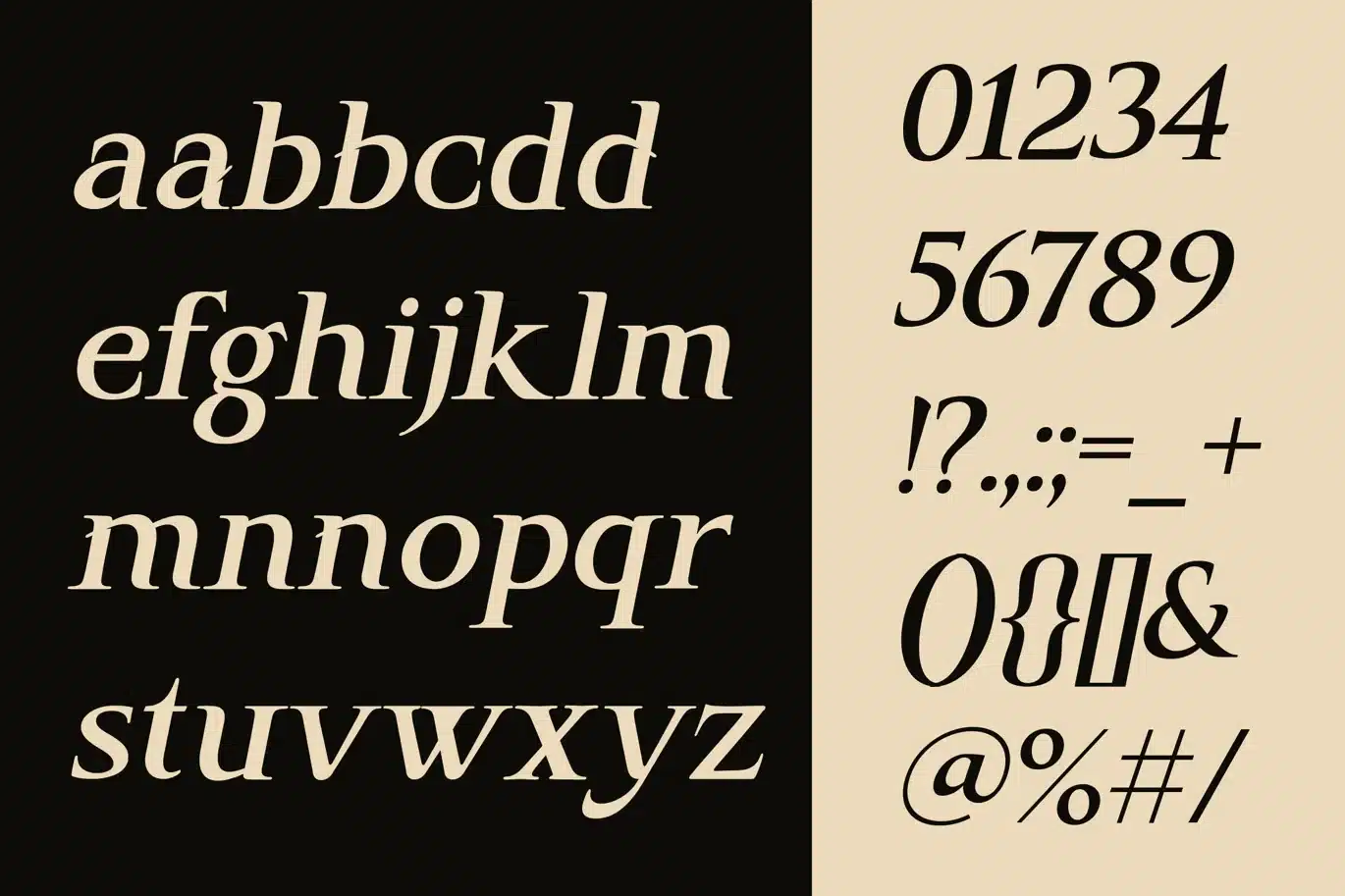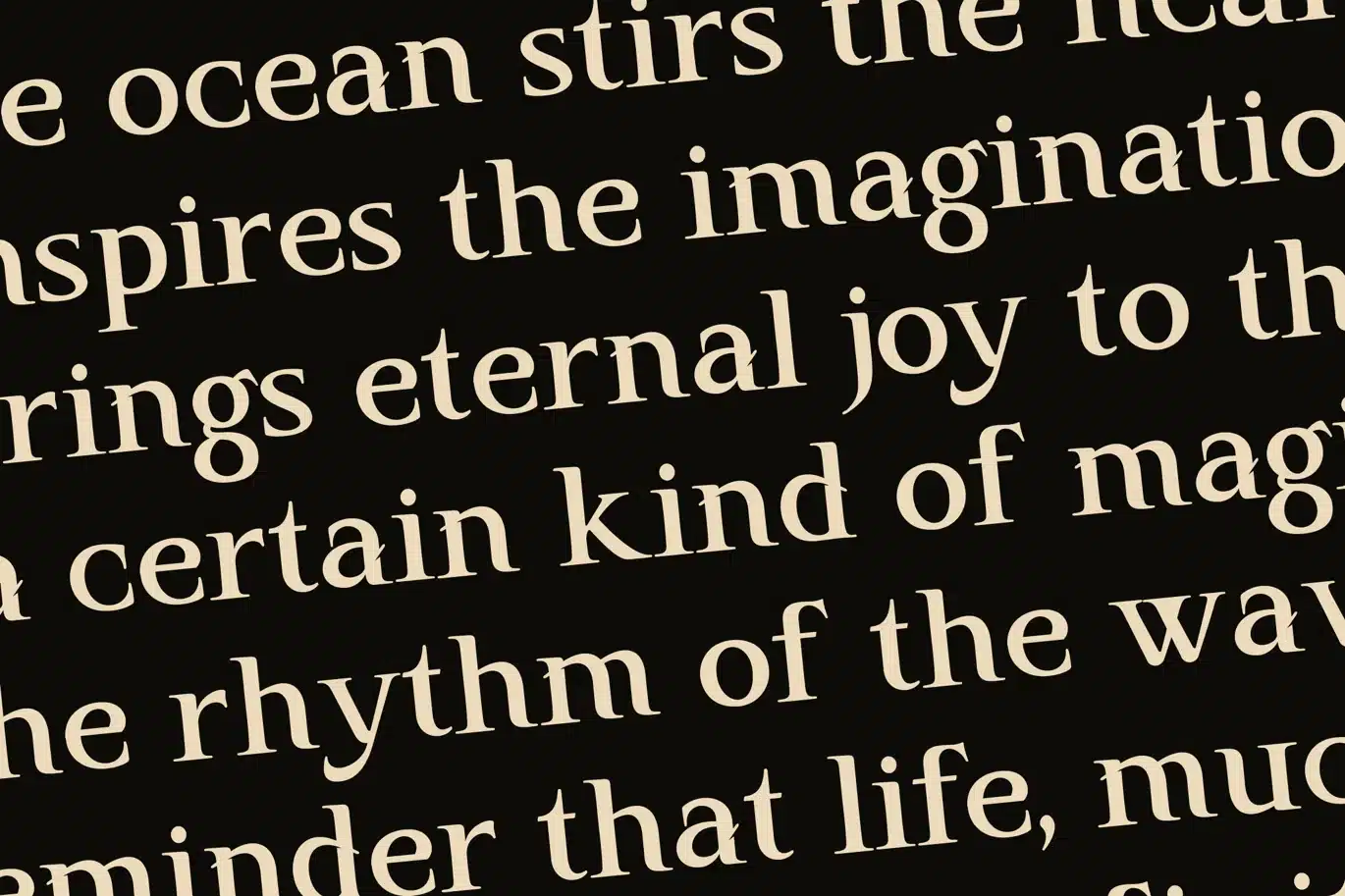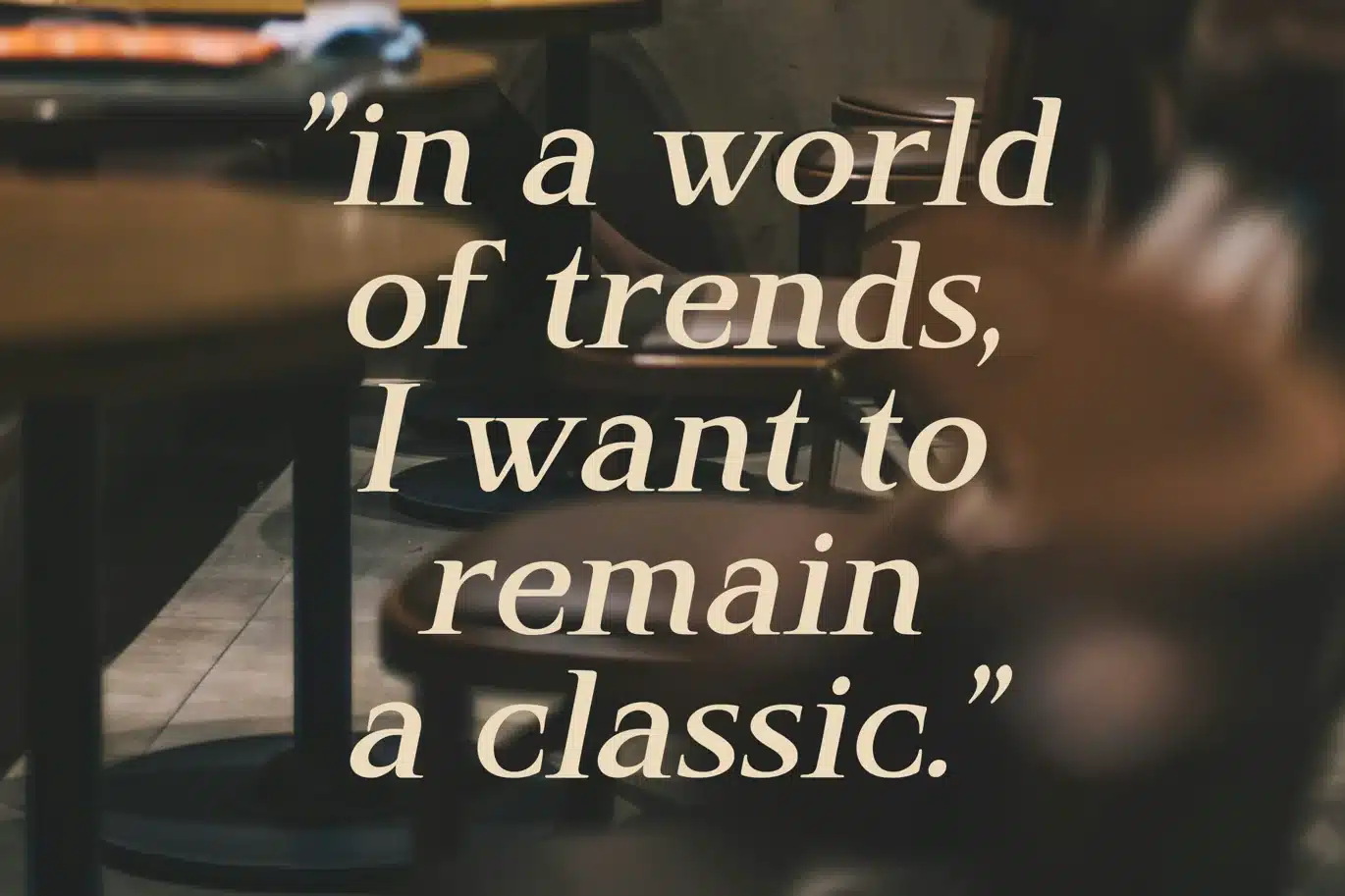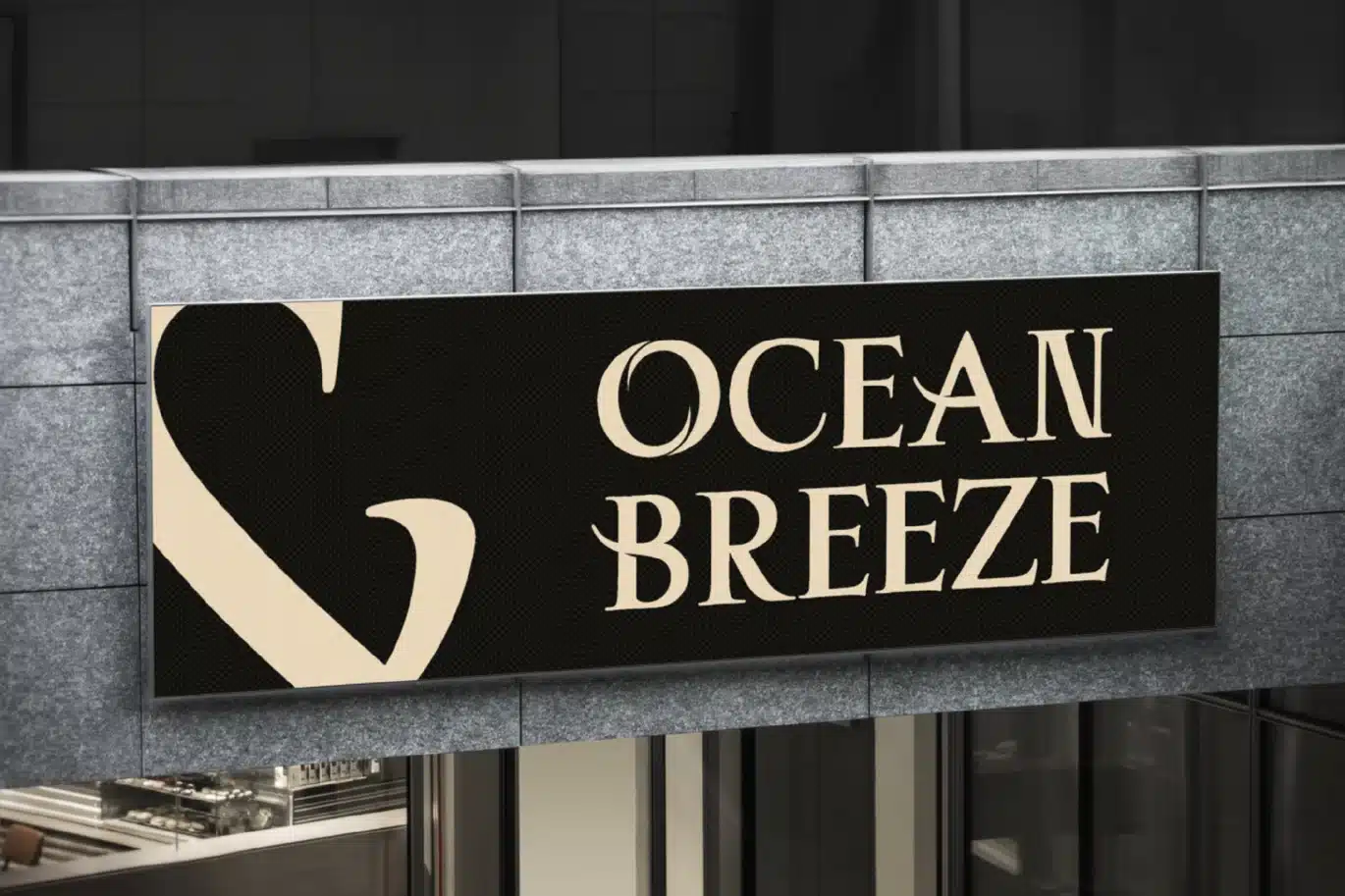
Hecta Ahera – Serif Font
The Essence of Hecta Ahera
Imagine walking through the grand halls of a silent library or the polished marble lobby of a five-star heritage hotel. Hecta Ahera was crafted to embody that very atmosphere—a sanctuary of stillness, prestige, and enduring legacy. It is a typeface designed for those who believe that true luxury doesn't need to shout to be heard.
Born from a fusion of classic Roman proportions and sharp, contemporary precision, Hecta Ahera acts as a bridge between history and the future. Each stroke is a tribute to artisanal craftsmanship, making it the perfect choice for brands that prioritize professional excellence and a premium aesthetic.
A New Standard for High-End Branding
Hecta Ahera is a luxury display serif family that defines sophistication. With its razor-sharp serifs and fluid stylistic alternates, this font is engineered to provide a bespoke, high-end feel for corporate identities, editorial masterpieces, and premium digital experiences.
- Hecta Ahera Regular: Strong, stable, and commanding.
- Hecta Ahera Italic: Dynamic, elegant, and deeply expressive.
Key Highlights:
- Global Language Support: Comprehensive multilingual characters to ensure your message resonates internationally.
- Exquisite Alternates & Ligatures: Unique decorative glyphs that allow you to create custom-looking typography for logos and headlines.
- Optical Balance: Meticulously kerned for maximum legibility and visual impact in large-scale displays.
Designed for Excellence In:
- Corporate Identity: Logos and branding for law firms, architectural studios, and consulting agencies.
- Editorial & Publishing: High-end book covers, magazine headers, and sophisticated layouts.
- Beauty & Wellness: Premium packaging for skincare, cosmetics, and apothecary brands.
- Property & Interior: Signage and collateral for luxury real estate and interior design portfolios.
- Hospitality: Elegant menus, hotel stationery, and premium event invitations.